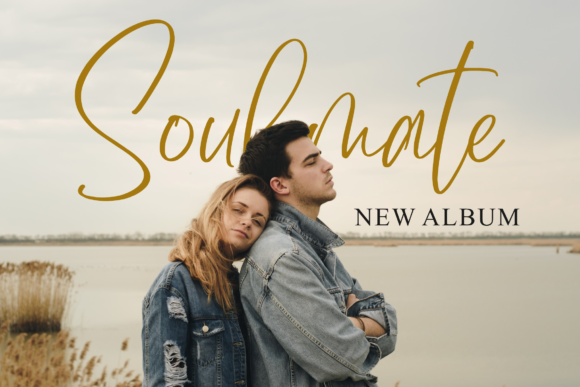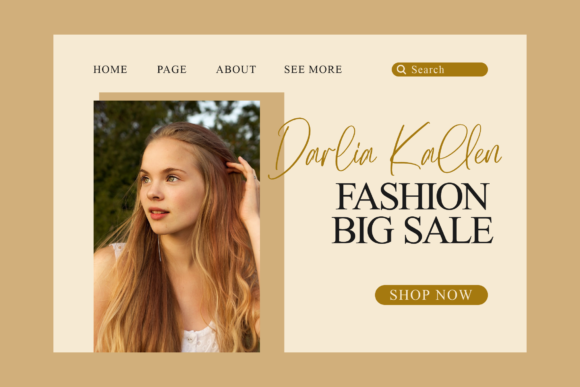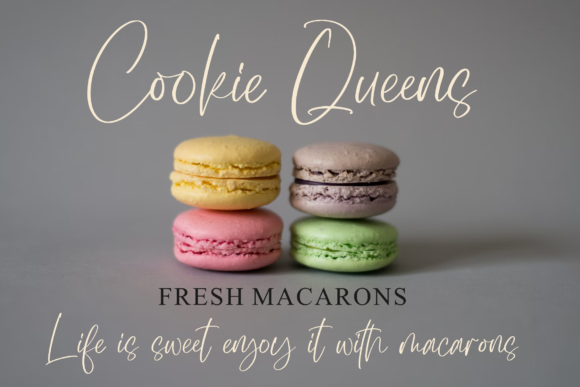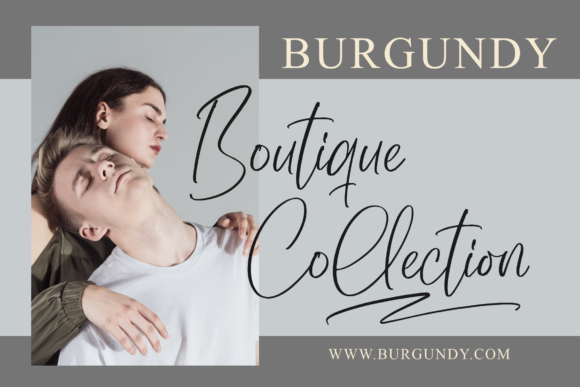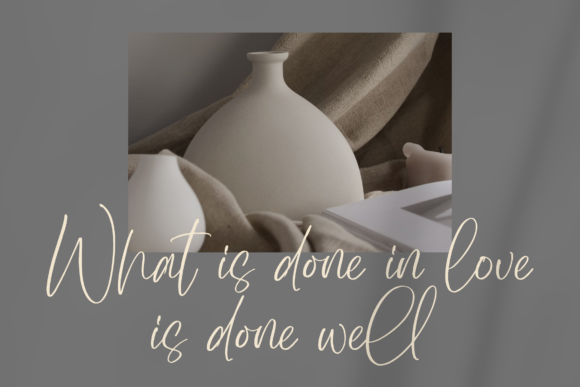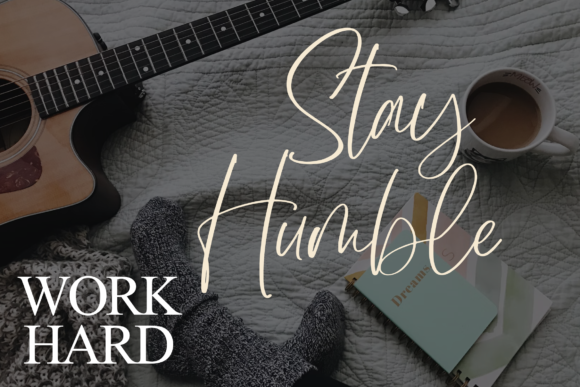
The Magical World of Andalustia Font
Have you ever been in the middle of a design project, and suddenly, you’re stuck on finding the perfect font? I remember a recent experience where I was working on a client’s branding project, and I just couldn’t find a script font that captured the elegance and whimsy I was looking for. That’s when I stumbled upon Andalustia Font, and let me tell you, it was love at first sight! 💫
A Personal Review of Andalustia Font
Andalustia Font is a magical script font that has been carefully crafted with a touch of elegance. It’s perfect for designers, crafters, and creative hobbyists looking to add a bit of sophistication to their projects. Here’s what I love about it:
- ✨ Elegant and flowing script style that’s perfect for creative projects
- ✅ PUA encoded, making it easy to access all the amazing glyphs and ligatures
- 💫 Highly versatile and can be used for a variety of projects, from Instagram posts to DIY crafts
- 🎨 Beautifully designed to add a touch of magic to any design
While Andalustia Font is amazing, there are a few small quirks to be aware of:
- 🤔 Some users may find the font a bit overwhelming due to its intricate design
- ⚠️ May not be suitable for very small font sizes or body text
The Story Behind Andalustia Font
Andalustia Font was designed with the intention of creating a beautiful, elegant script font that captures the essence of magic and wonder. The designer drew inspiration from traditional calligraphy and modern typography to create a unique and captivating font.
| Font Name | Andalustia Font |
| Author | Letterfabric |
| What is PUA encoding, and how does it benefit the user? | PUA (Private Use Area) encoding allows users to access a wide range of glyphs and ligatures, making it easier to create unique and creative designs. |
| Is Andalustia Font suitable for body text or small font sizes? | Andalustia Font is best suited for display text or larger font sizes. It may not be suitable for body text or small font sizes due to its intricate design. |